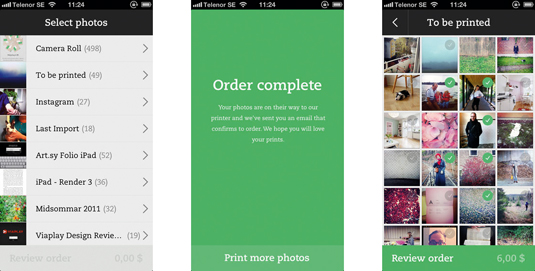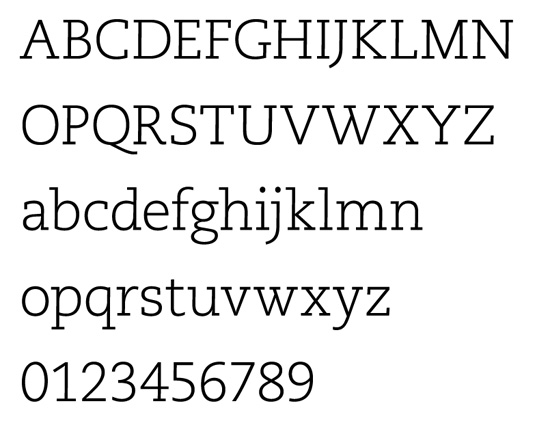
Greatest fonts countdown: 80 - PMN Caecilia
80. PMN Caecilia
- Peter Matthias Noordzij, 1990
PMN Caecilia is the first font family by Peter Matthias Noordzij, who established The Enschedé Font Foundry in 1991. His debut work was released to Linotype, under whose care it became one of the most successful slab-serif text fonts.
The first drafts of Caecilia go back to 1983, when Noordzij was a third-year student at the Academy in The Hague. The large family’s strength is its combination of classical ideas and the typical Hague style – which is apparent in the clear forms and a dynamic italic.